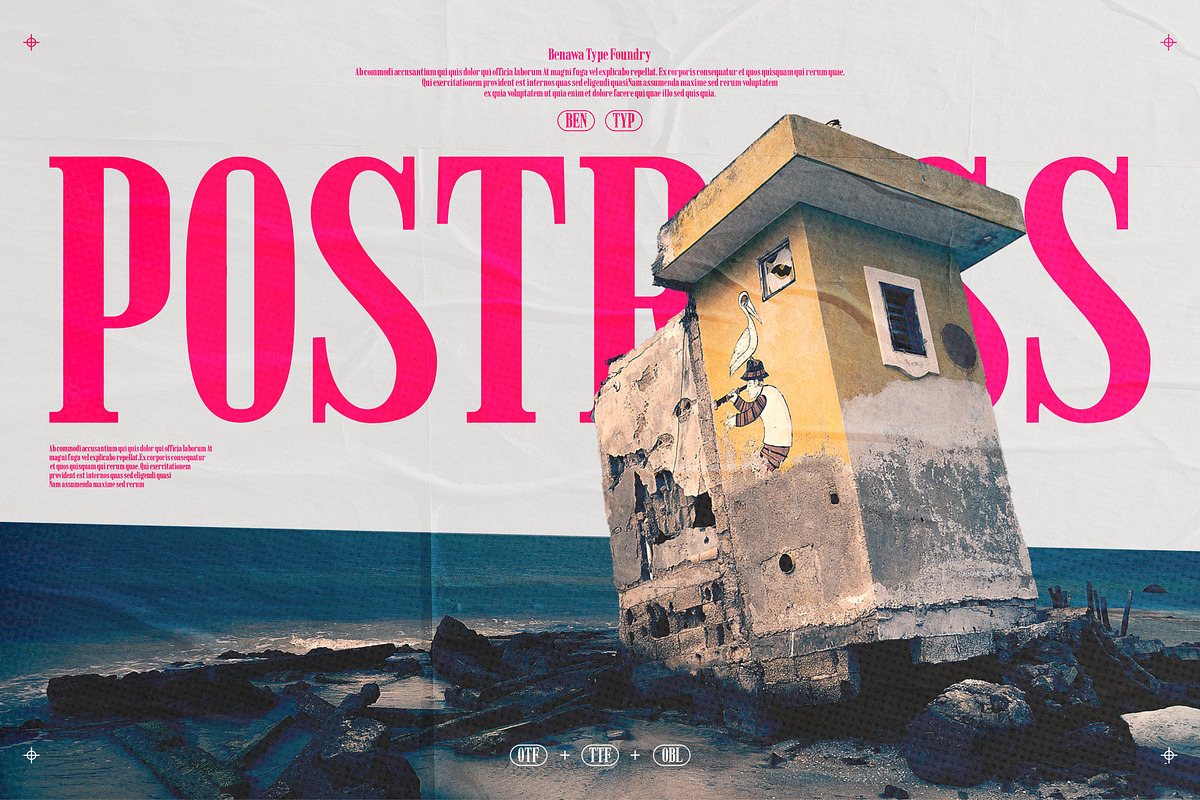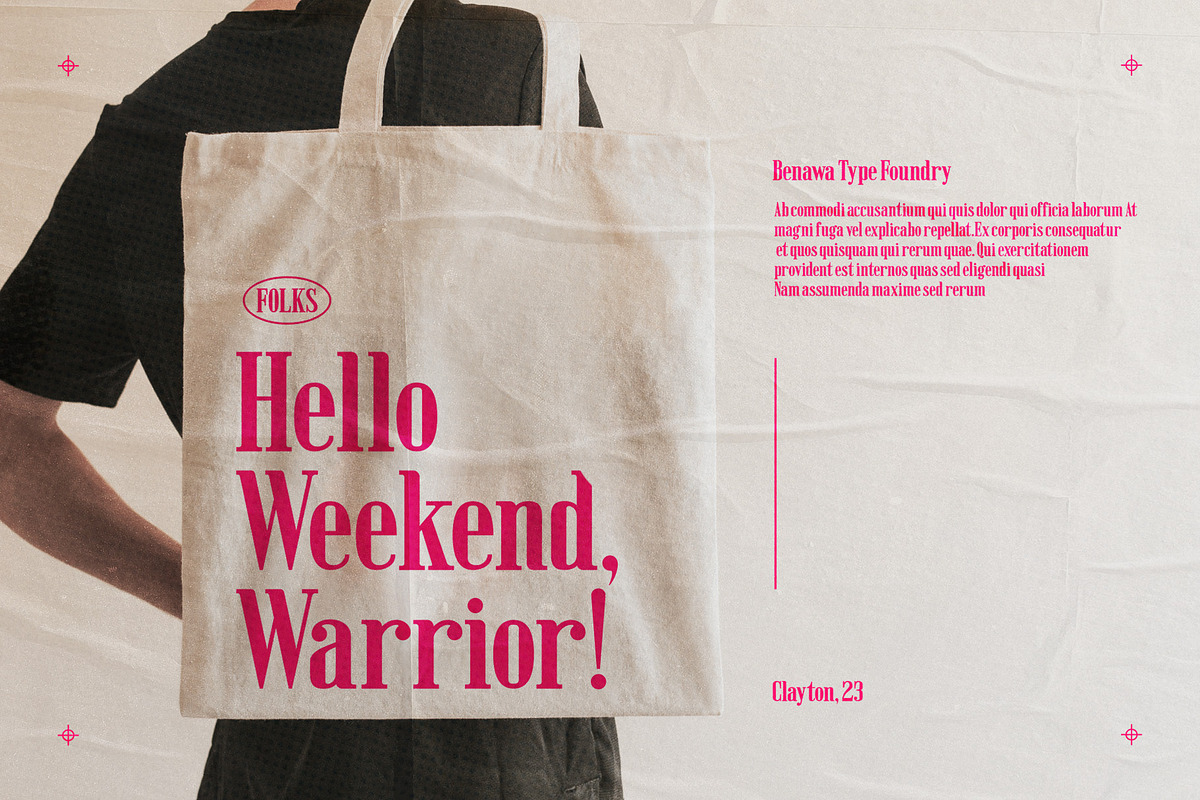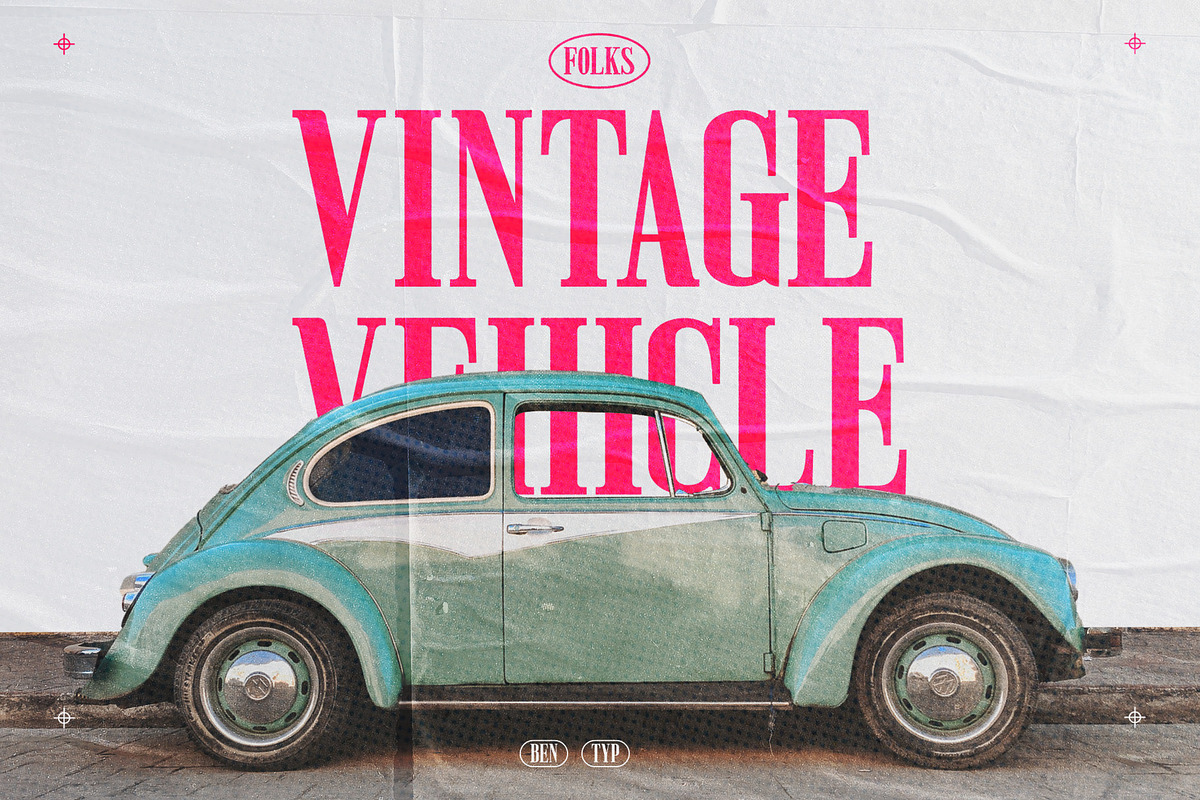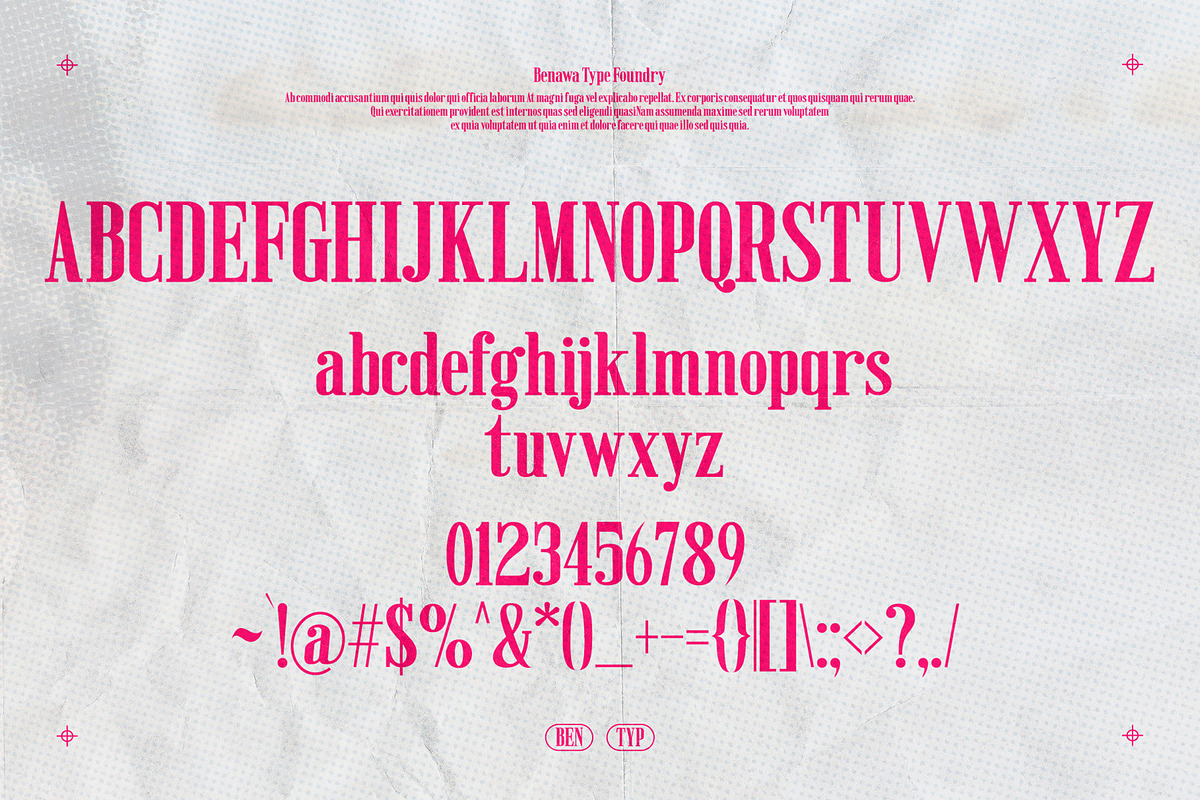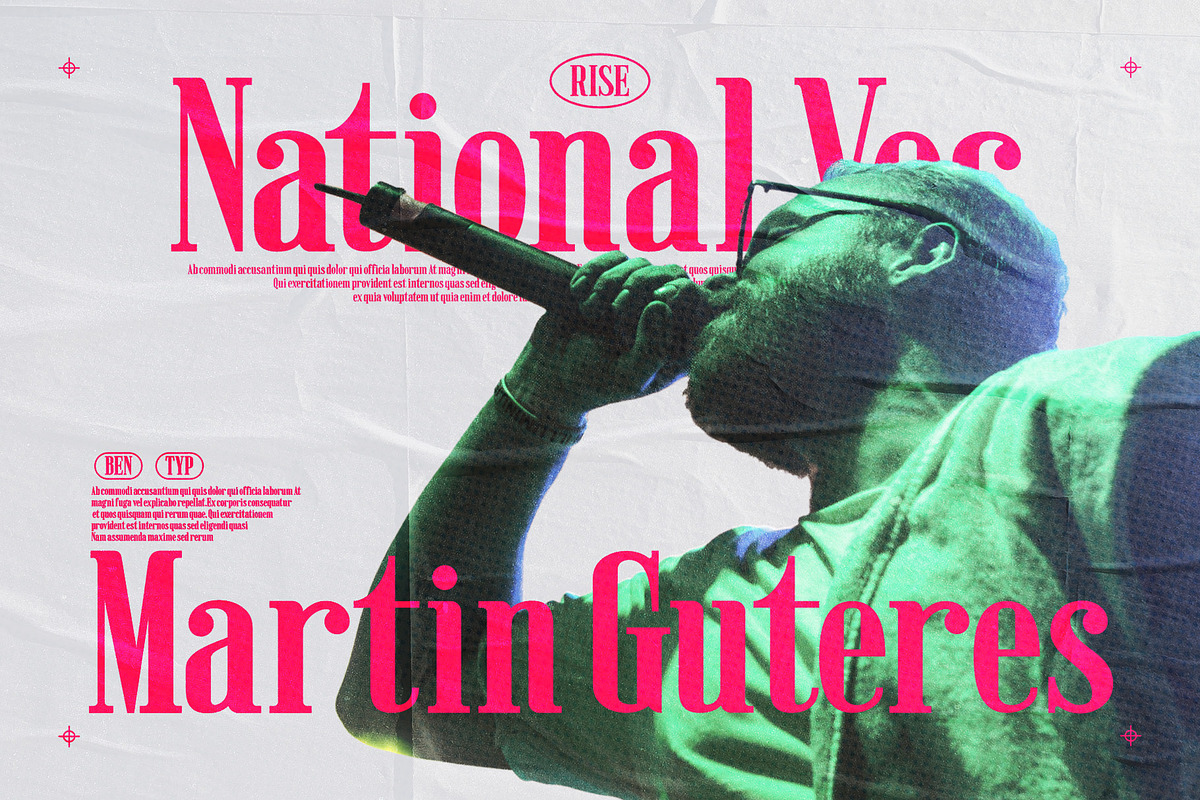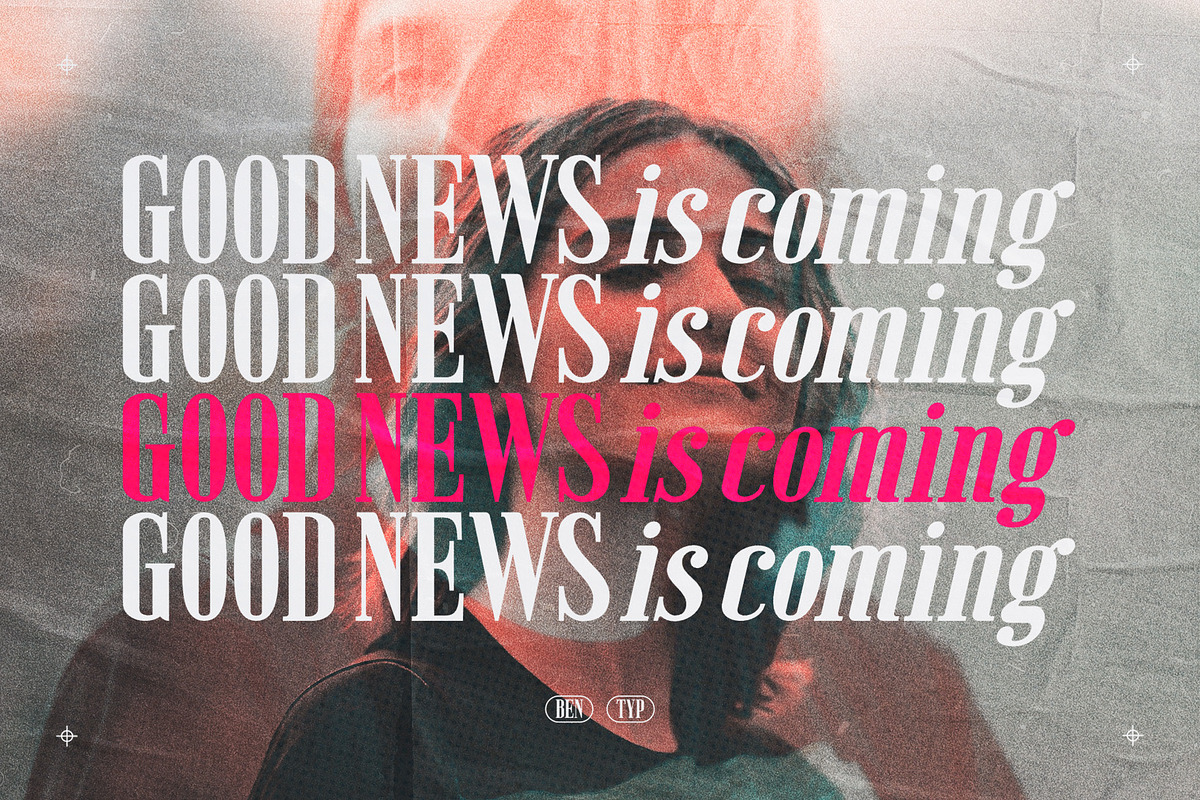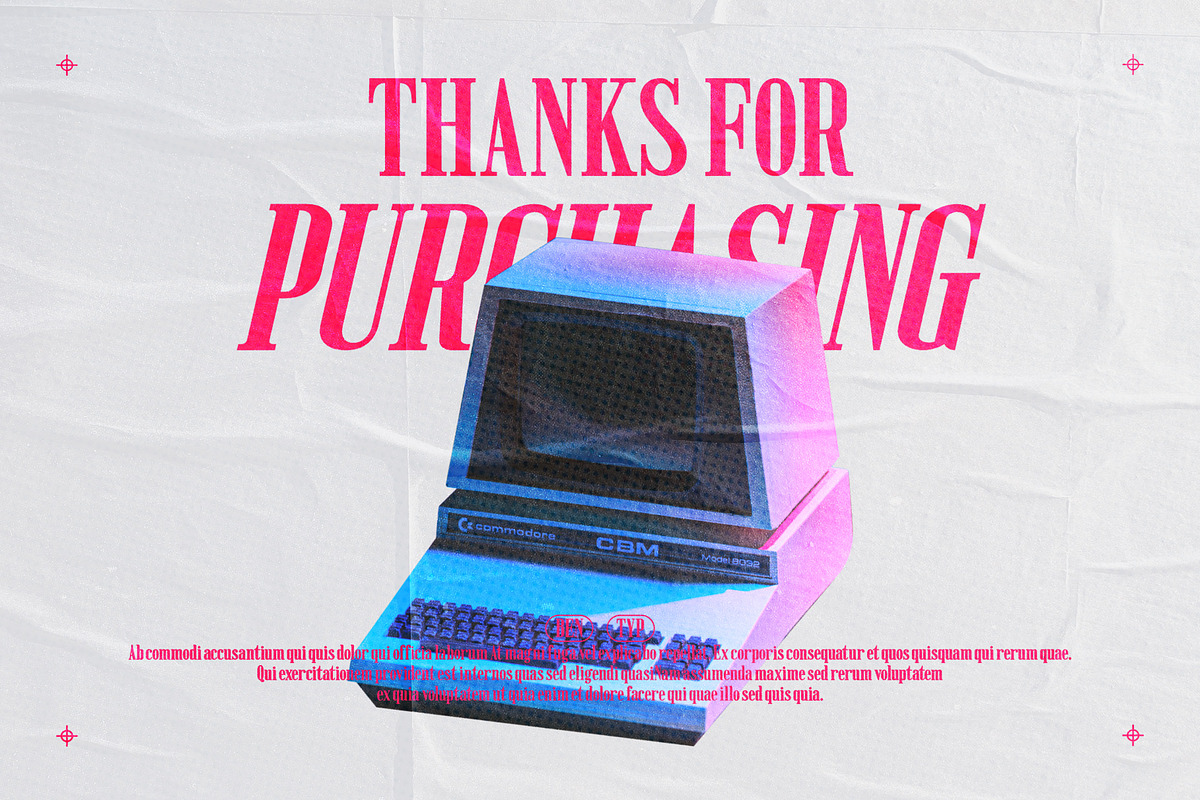
Postress - Condensed Serif
POSTRESS is a condensed serif font, condensed serif font with the condensed and oblique specialty. It is perfect for headlines, billboards, magazines, websites, titles, posters, branding, and logos. You can make your project stand out from the rest.